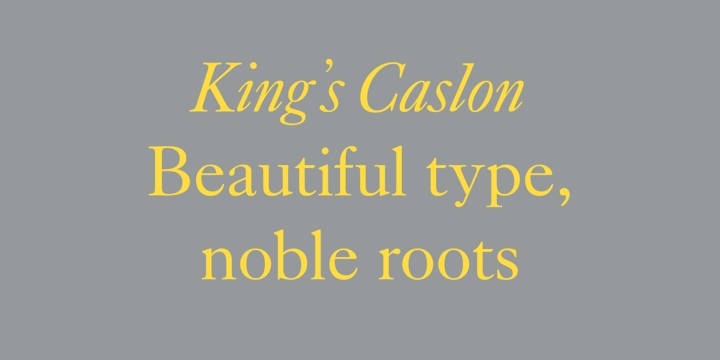
Kings Caslon Font
Kings Caslon Font is perfect for prestigious publications, royal branding projects, classical book design, heritage institution materials, traditional wedding invitations, distinguished editorial layouts, luxury brand communications, aristocratic event stationery, regal marketing campaigns, and timeless corporate identities.
What makes Kings Caslon Font so exciting is its majestic heritage that captures the essence of royal typography traditions with uncompromising elegance and classical authority. This distinguished serif typeface embodies aristocratic sophistication and imperial grandeur, creating typography that commands respect while honoring centuries of typographic excellence.
The Kings Caslon Font family includes light, regular, medium, bold, and black weights, complete with italic variations and classical design features that provide designers with comprehensive tools for creating distinguished and memorable typography that honors royal traditions and classical elegance.
The regally proportioned letterforms of Kings Caslon Font showcase classical elegance with imperial character that creates instant recognition of prestige and royal quality. Each character displays meticulous attention to maintaining the aristocratic sophistication that defines royal typography while ensuring contemporary readability and professional versatility. The font's distinguished serifs and regal spacing contribute to its majestic appearance and imperial appeal.
Luxury brands and prestigious institutions consistently choose Kings Caslon Font for projects requiring royal authority and classical sophistication. The comprehensive character set includes uppercase and lowercase letters, numerals, extensive punctuation, international accents, and classical ornamental elements that provide complete support for prestigious branding applications and distinguished design compositions.
The timeless majesty of Kings Caslon Font ensures exceptional performance across both traditional print and modern digital platforms. Whether developing royal brand identities, creating prestigious editorial materials, or designing distinguished marketing campaigns, this remarkable typeface delivers consistent grandeur that resonates with audiences appreciating classical elegance and aristocratic refinement.